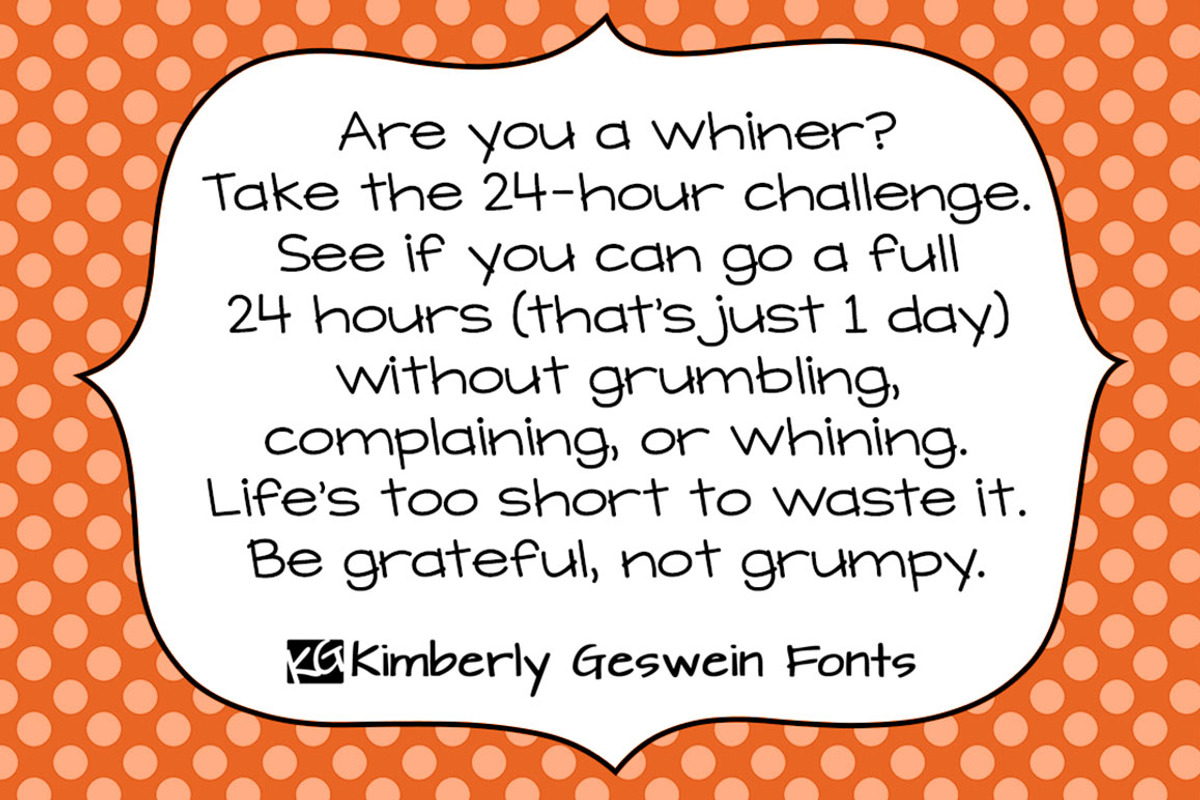
KG What Does the Fox Say Font
KG What Does the Fox Say Font by Kimberly Geswein Fonts is a font selected for branding, posters, packaging, typography.
- Also includes a cute foxtail on the bar key |.
Why KG What Does the Fox Say Font is worth a look
KG What Does the Fox Say Font by Kimberly Geswein Fonts fits naturally into Branding, posters, packaging, typography.